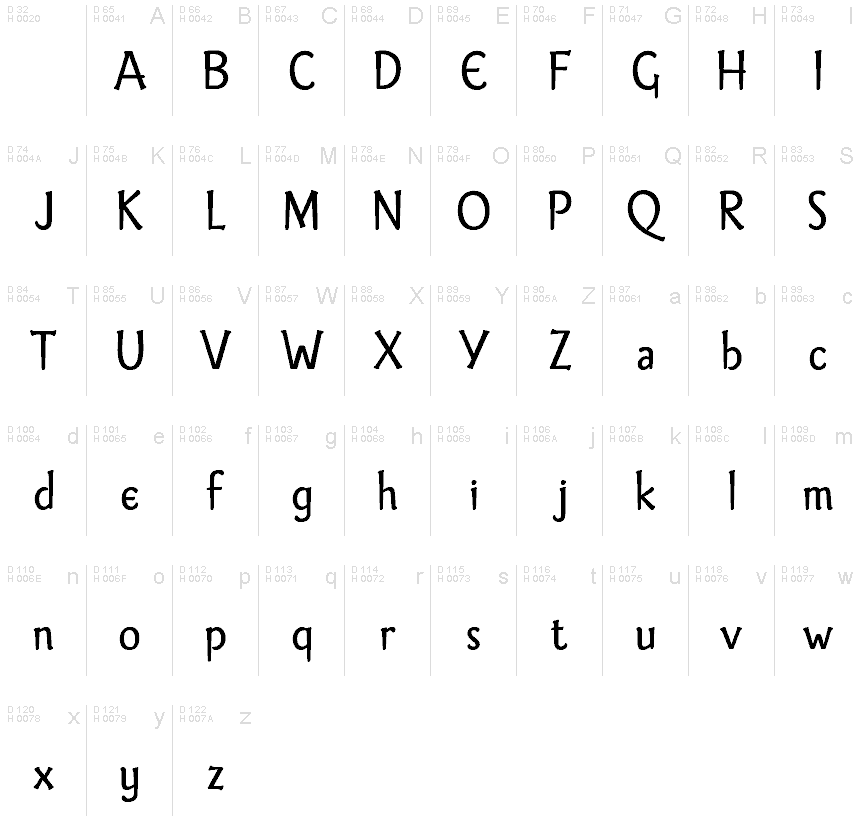
CS Butterfly Regular Demo
CS Butterfly font is a special design from Craft Supply Co. The free irregular serif combines an organic feel with vintage influences for a simple yet textured and aesthetic appearance. And even though its letters are formed with rough and slightly faded line segments, they demonstrate the organized direction of writing for the necessary readable texts.
Both individuals and businesses can employ this tool for magazine covers, newspaper articles, headlines, body texts or biographies. You can also create posters or commercials for themed events including live music events, gallery openings, or book clubs.